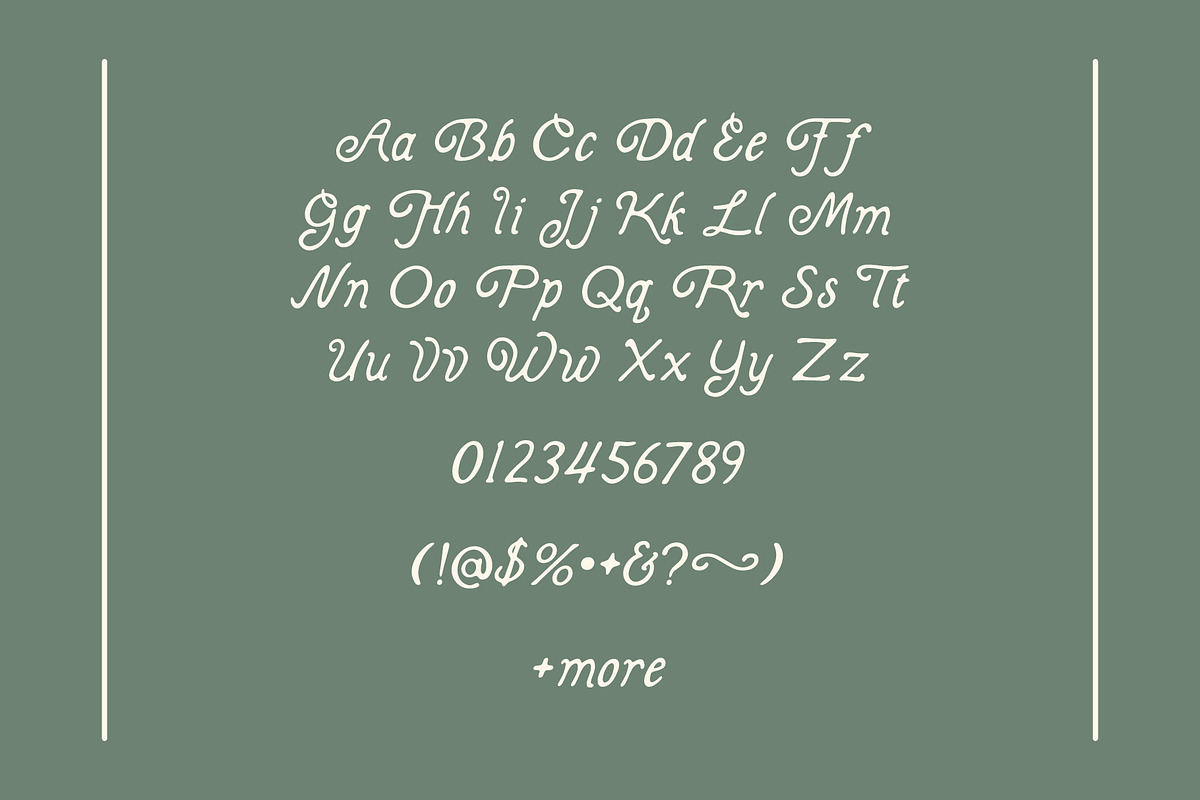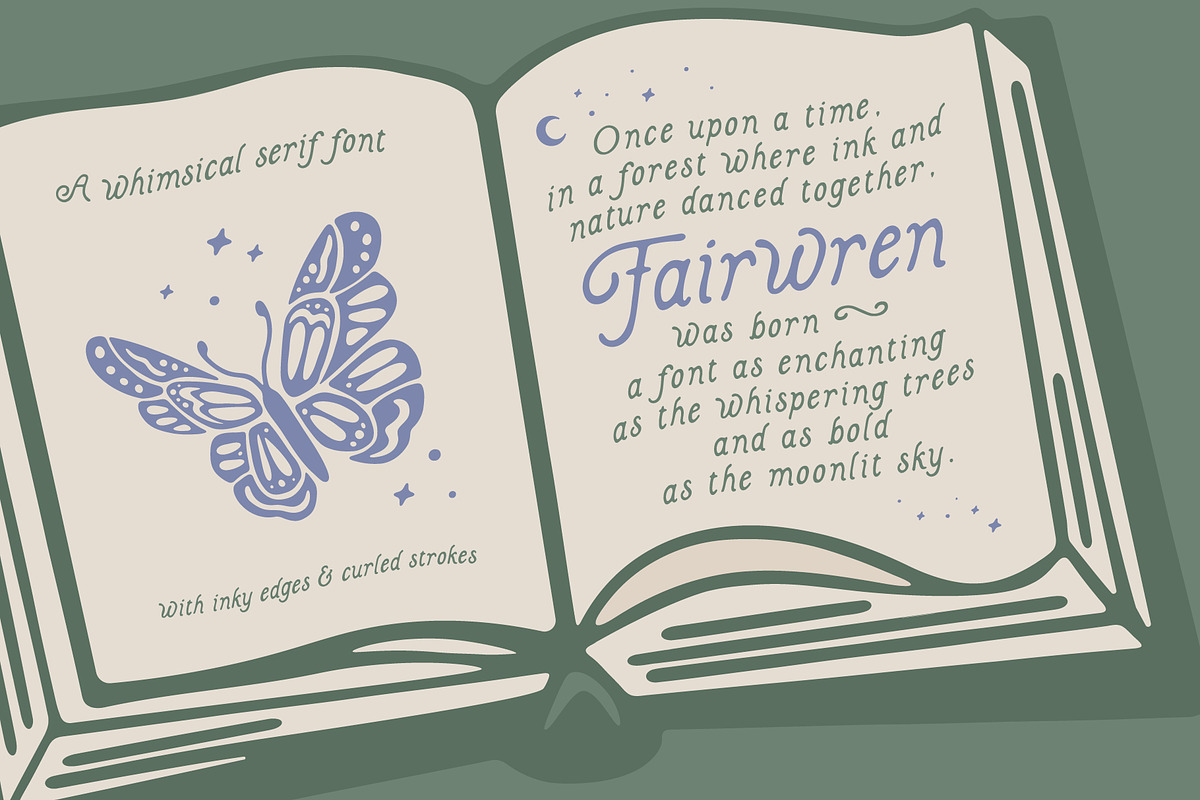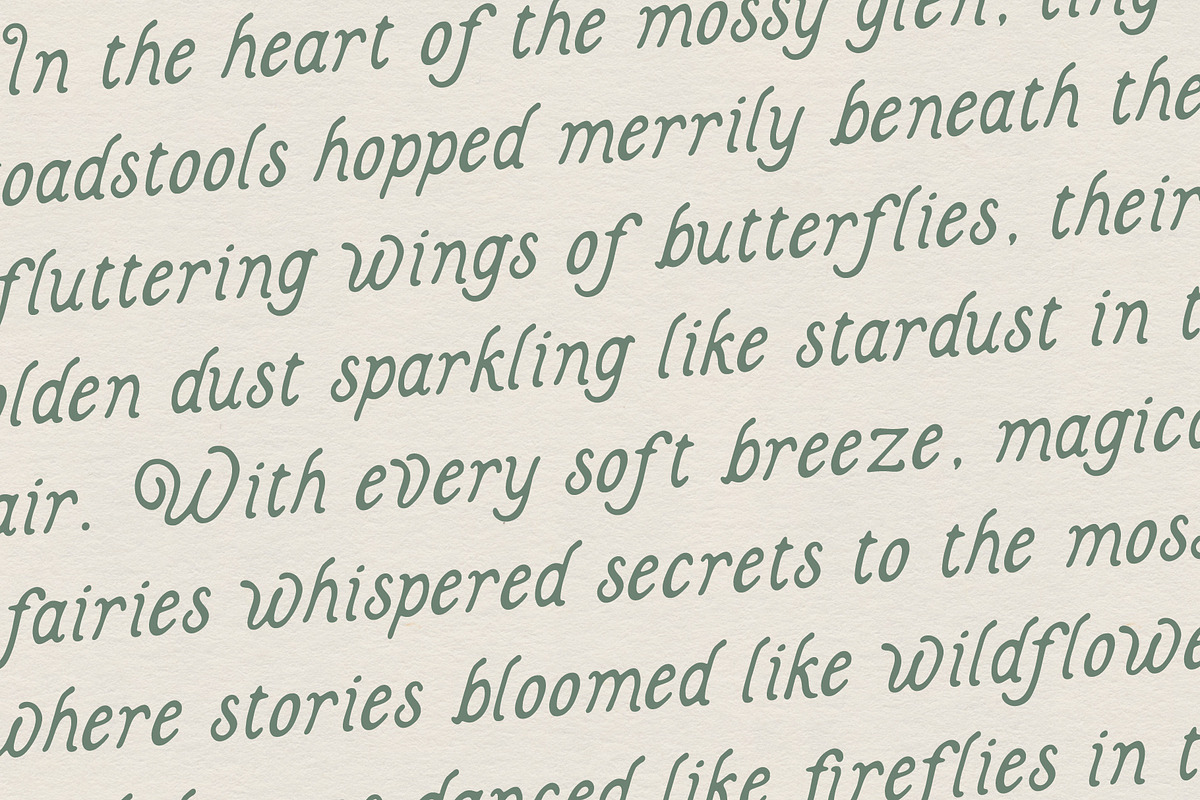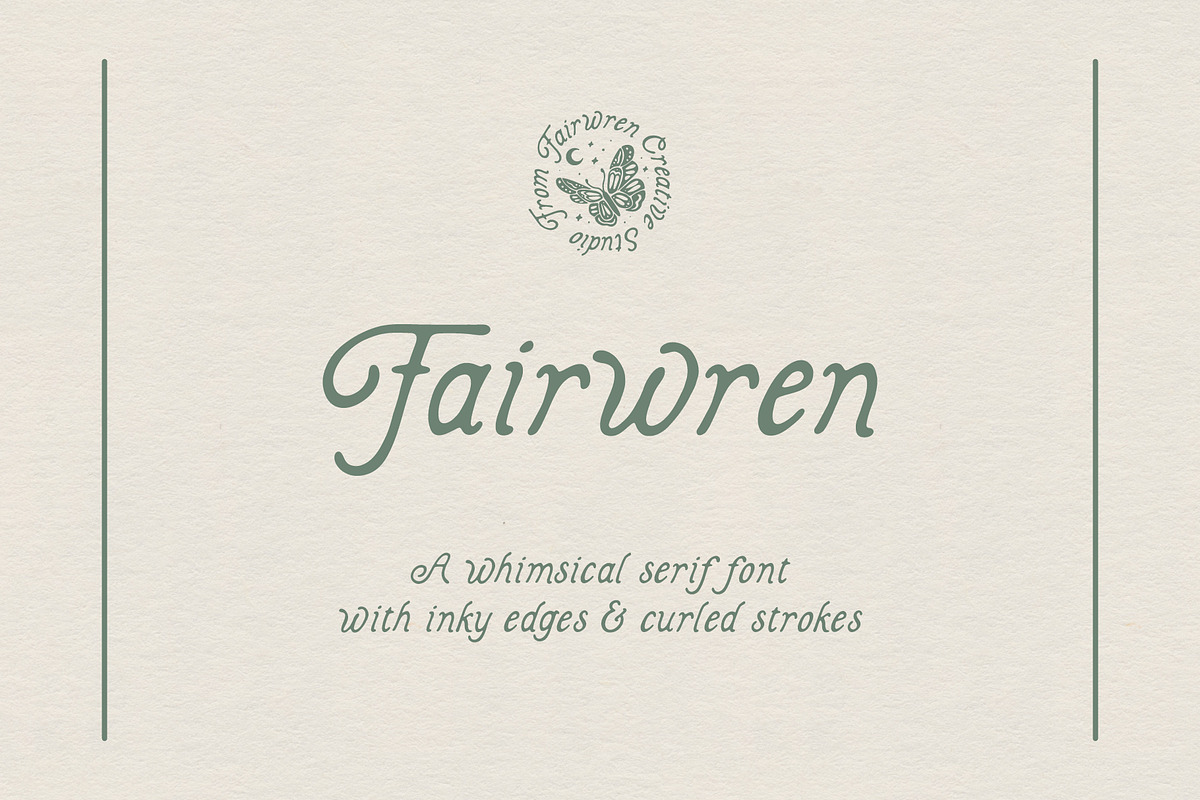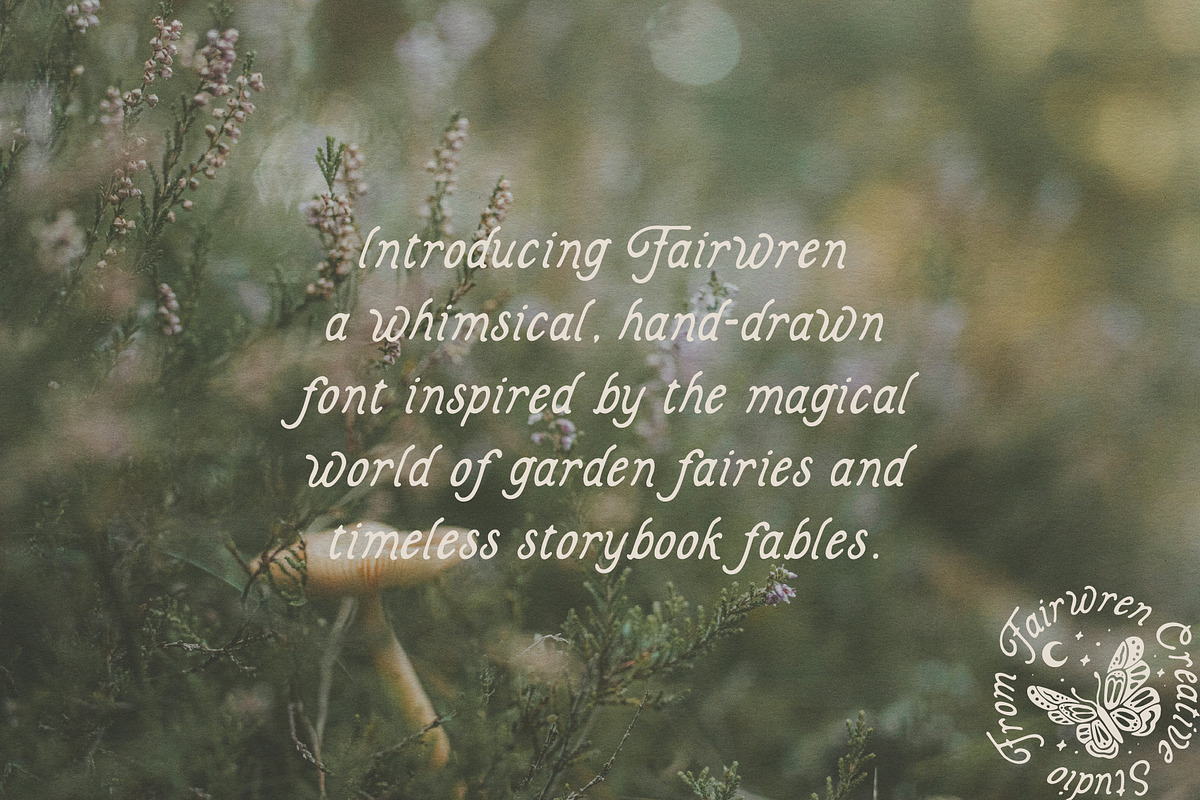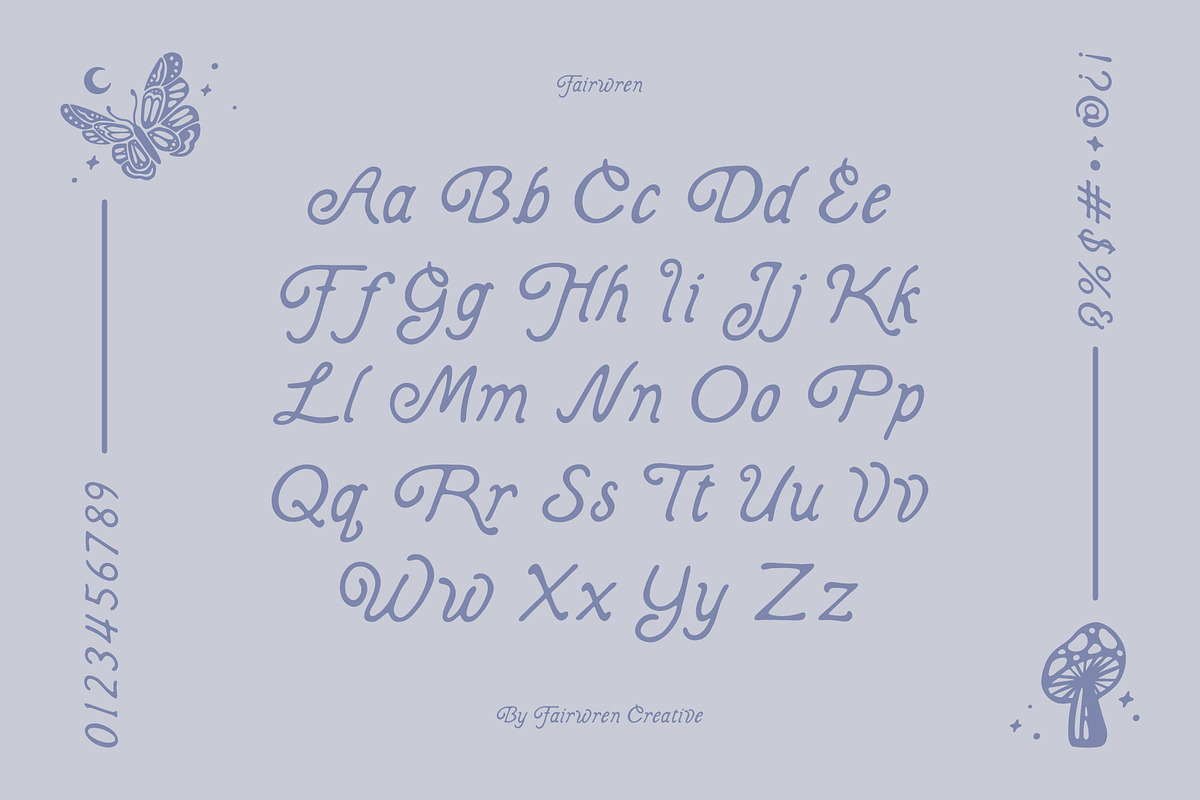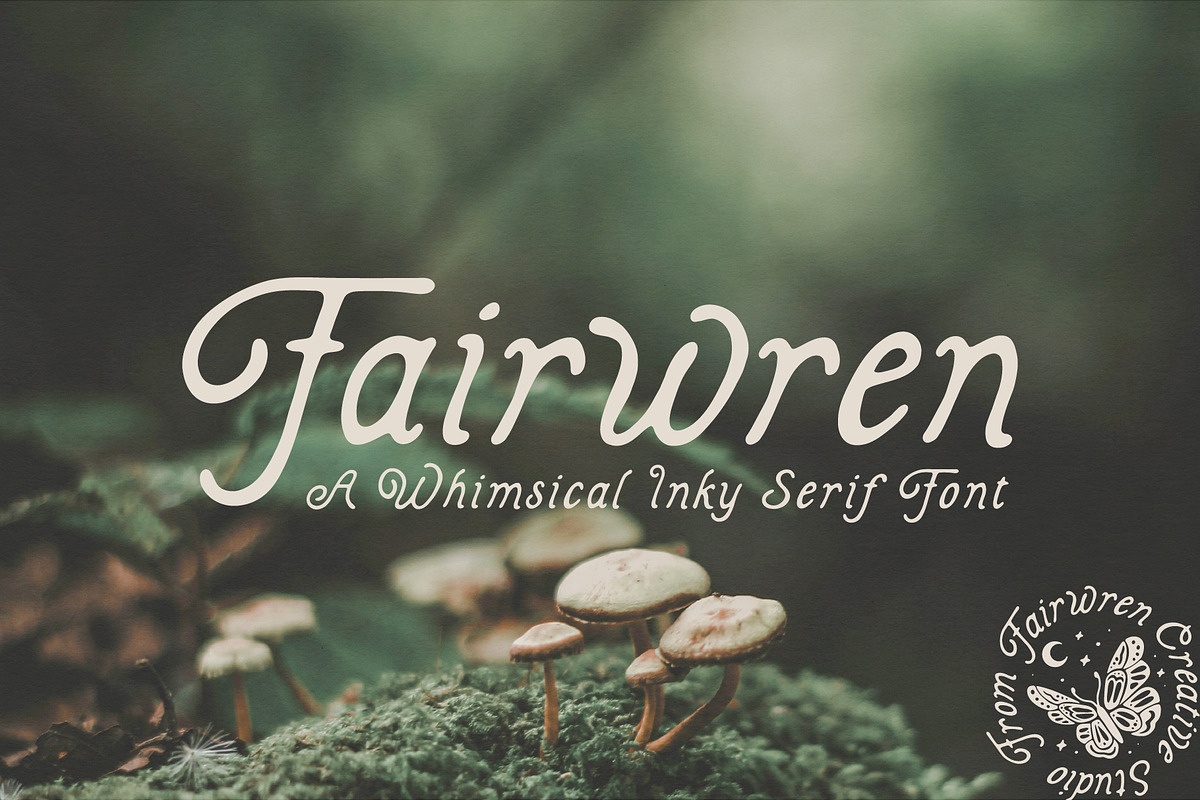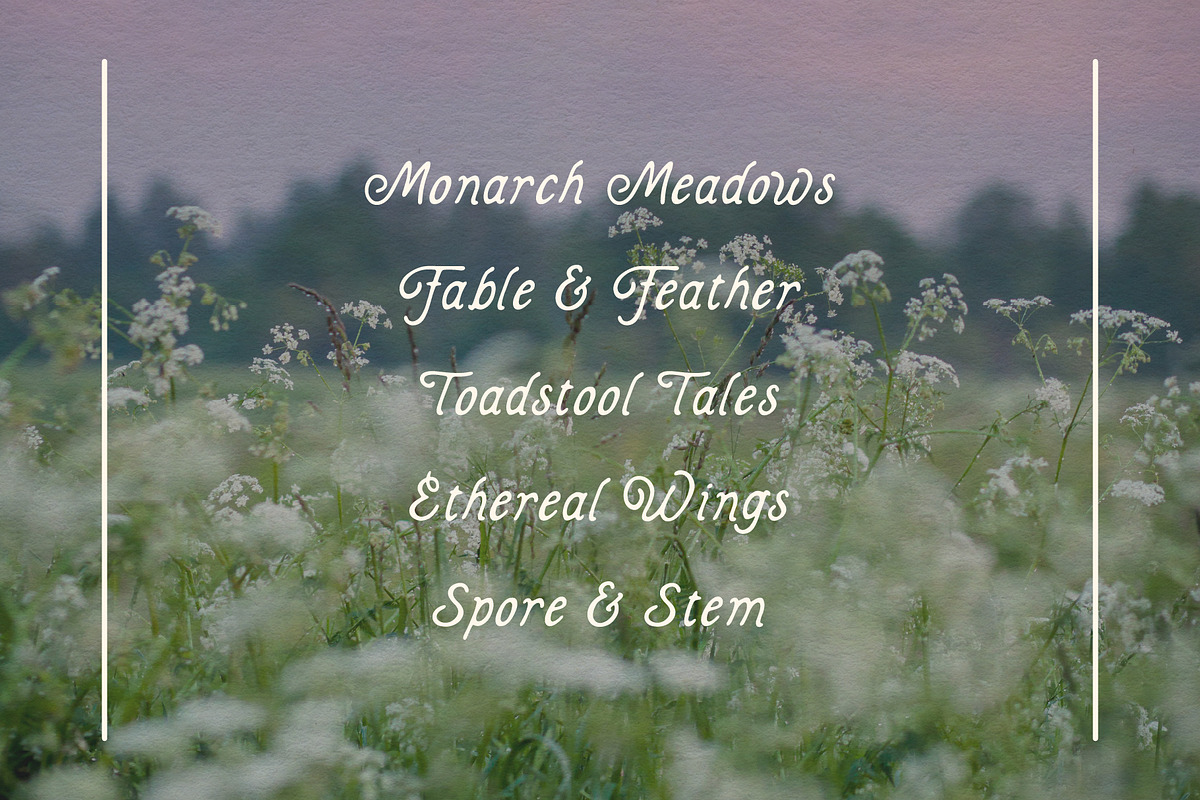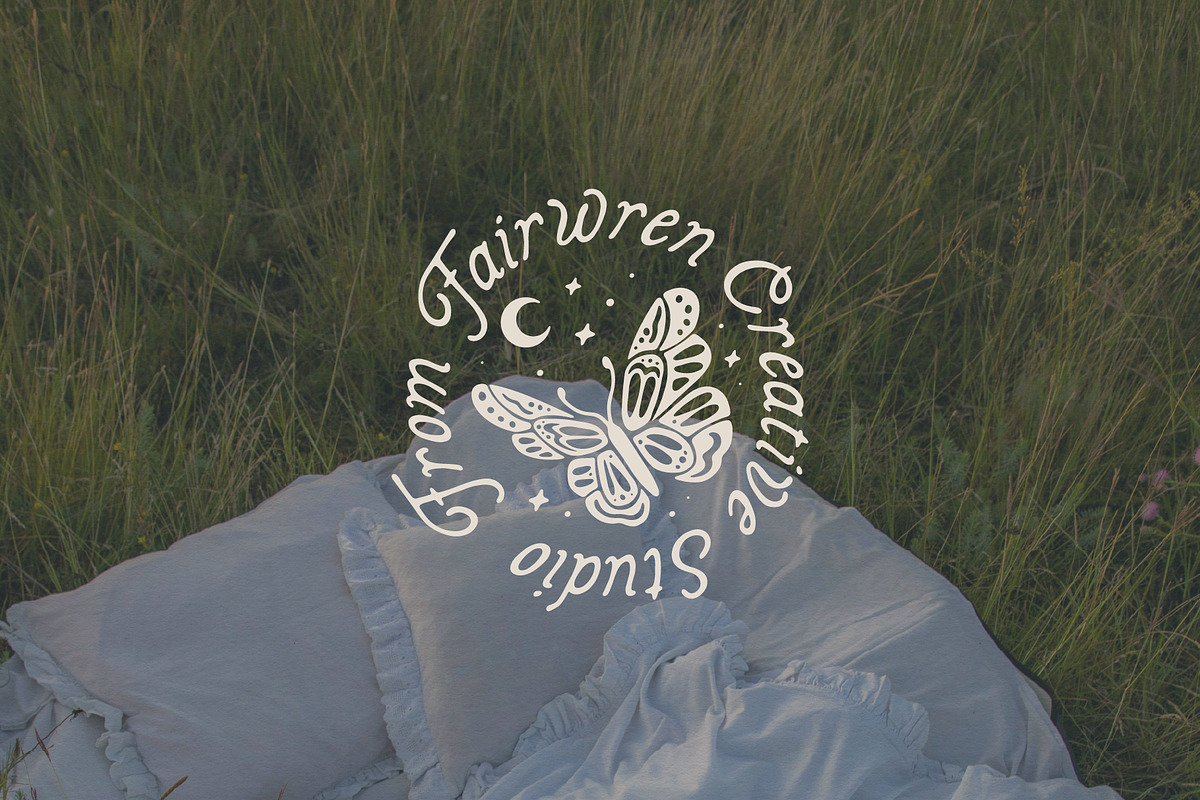
Fairwren
Introducing Fairwren – A Whimsical Inky Serif with Handcrafted Charm
Fairwren is a playful, whimsical serif that blends the magic of hand-drawn inky edges with the boldness of solid strokes. Inspired by the beauty of nature, it captures the quiet elegance of fairy gardens, tranquil meadows, and soft whispers of forests at dusk.
With inky, irregular edges and gracefully curled strokes, Fairwren strikes the perfect balance between delicate fluidity and grounded presence. Its organic, hand-drawn feel pairs with sturdy clarity, making it ideal for anything from nature-inspired branding to captivating headlines.
Fairwren evokes the charm of cottagecore aesthetics, with flowing strokes and rounded edges, while offering the boldness needed for display use. It seamlessly blends fantasy and reality, fitting both whimsical and structured designs.
Let Fairwren bring a touch of magical wonder and organic beauty to your creations, offering a perfect mix of delicate fluidity and solid presence for any project in need of fairy-tale charm.